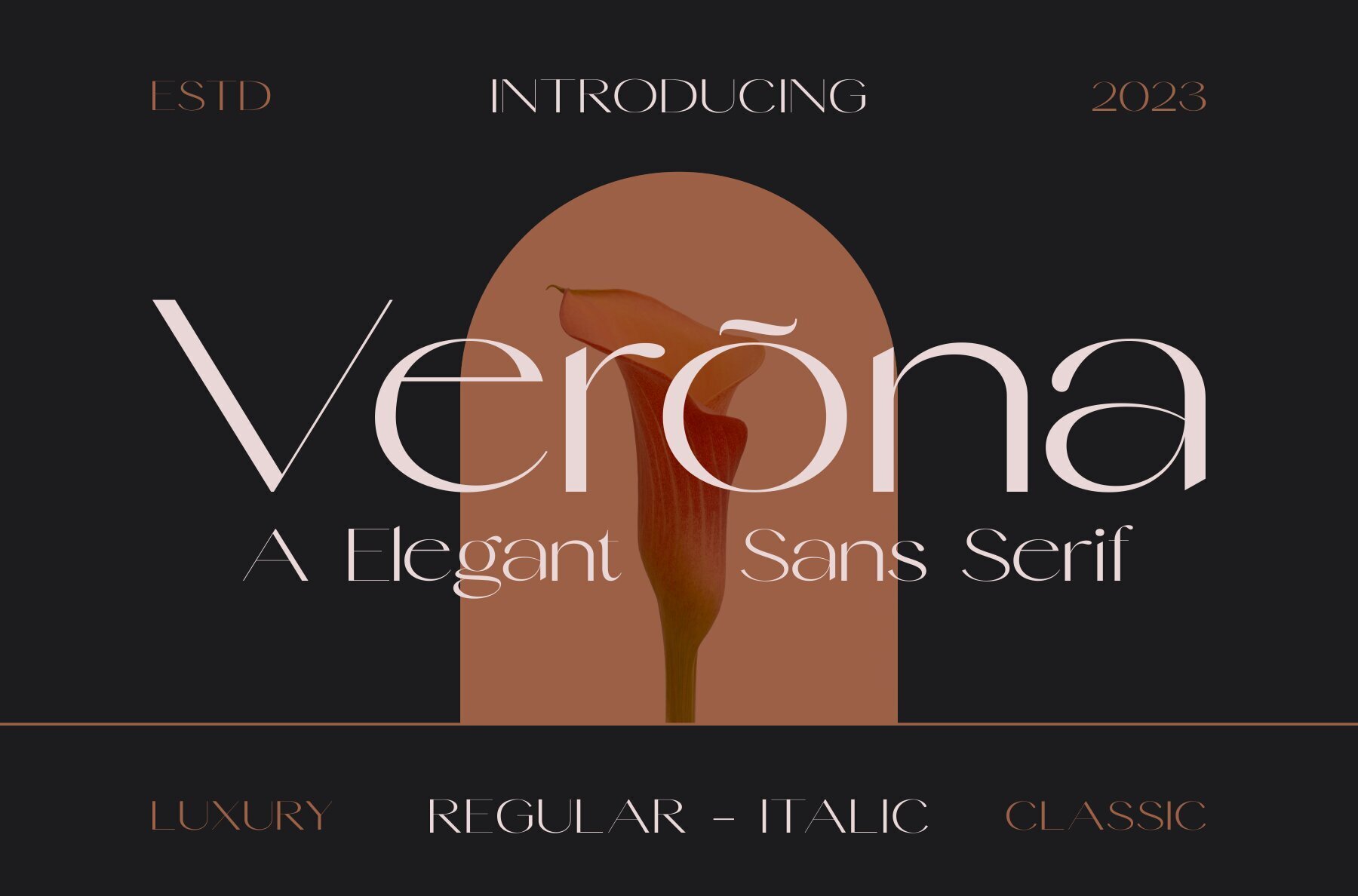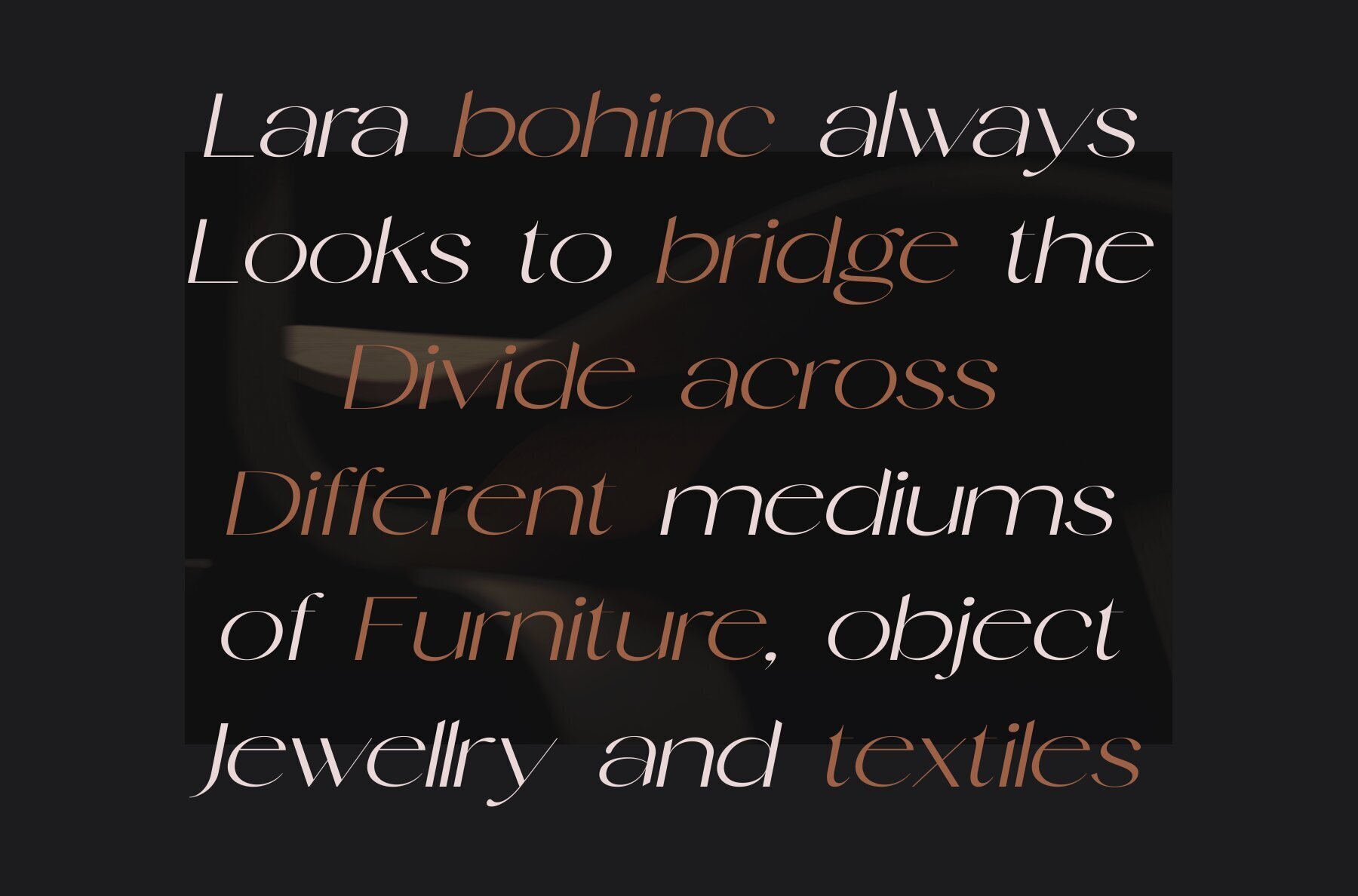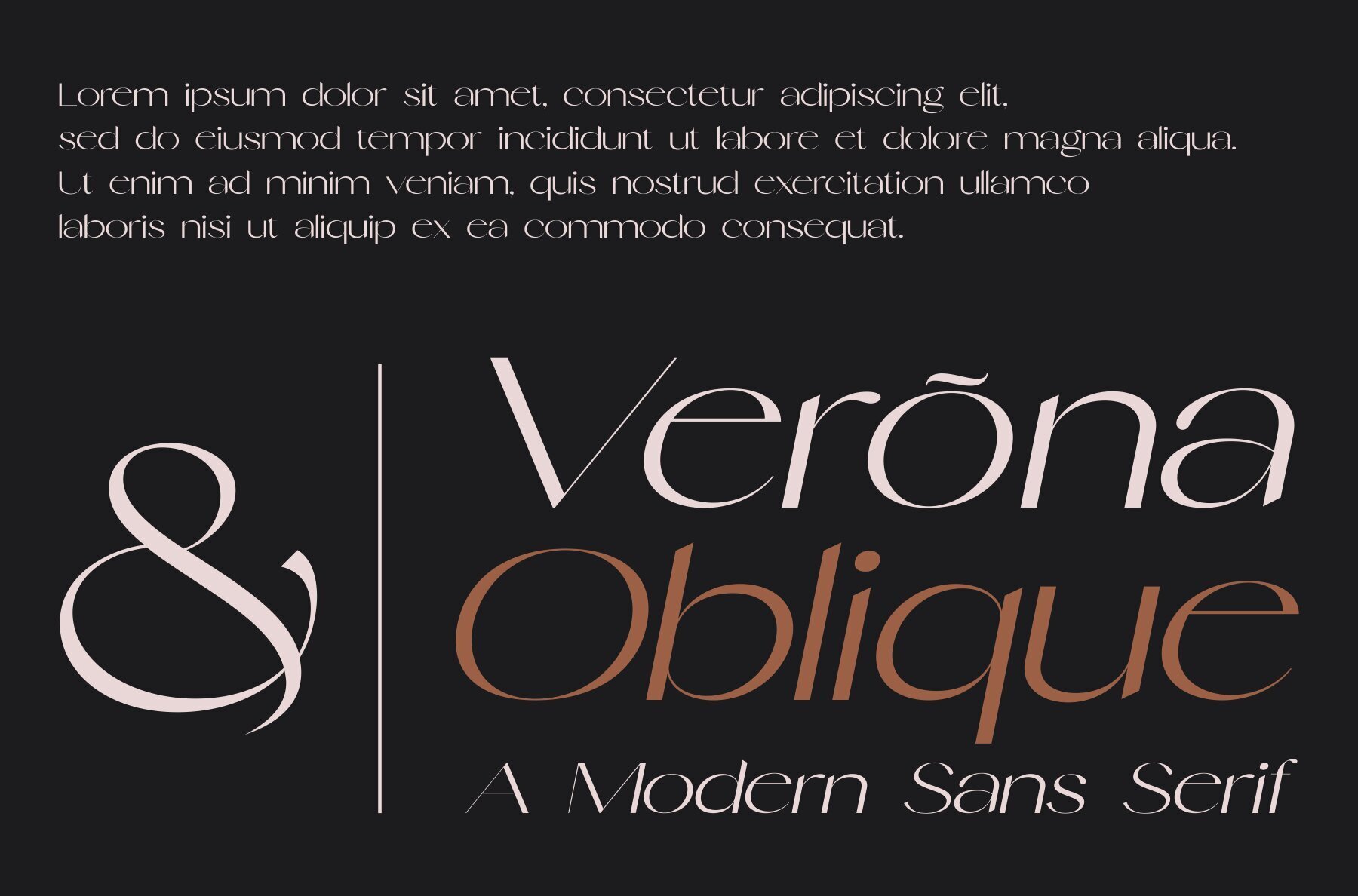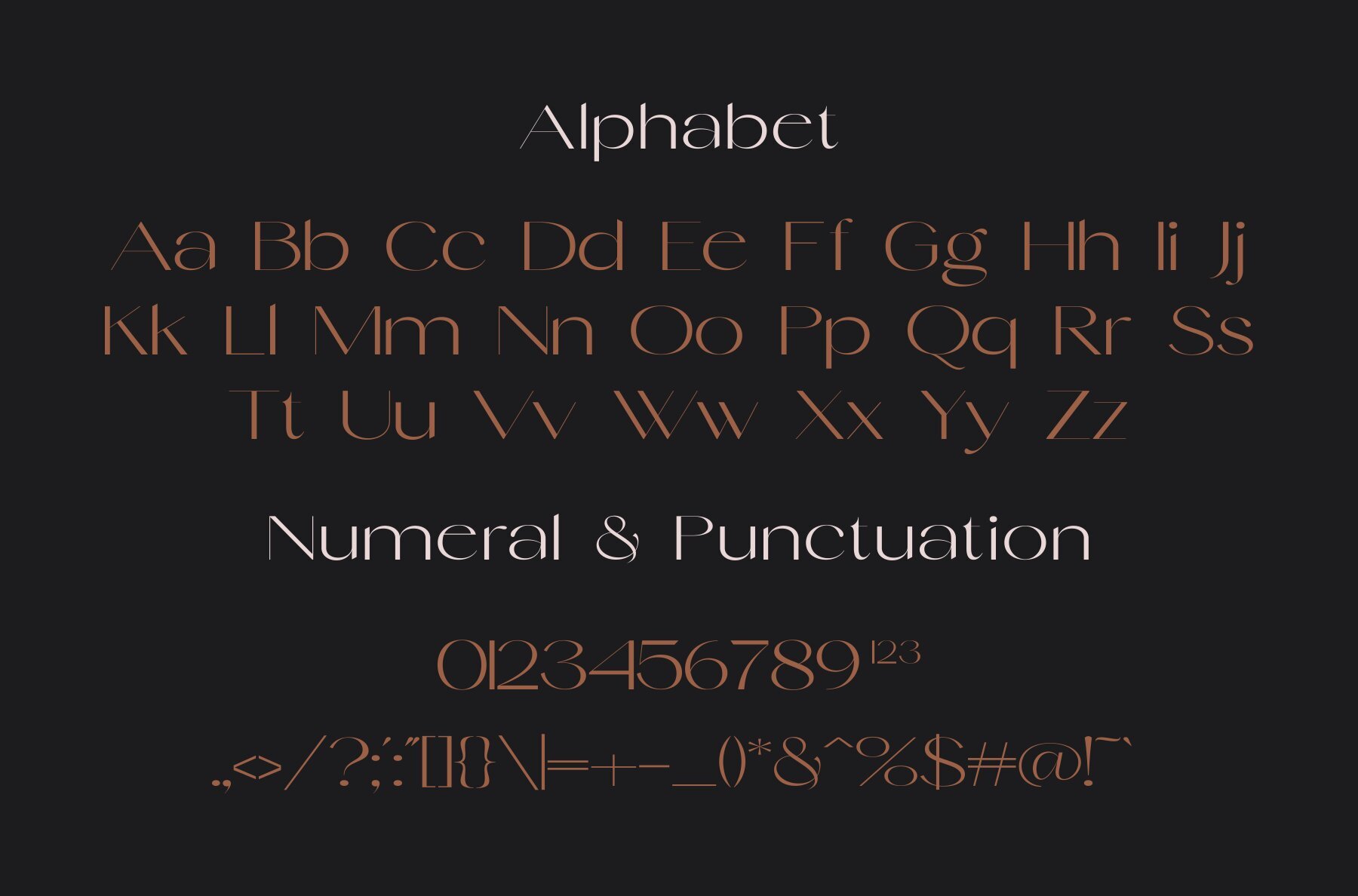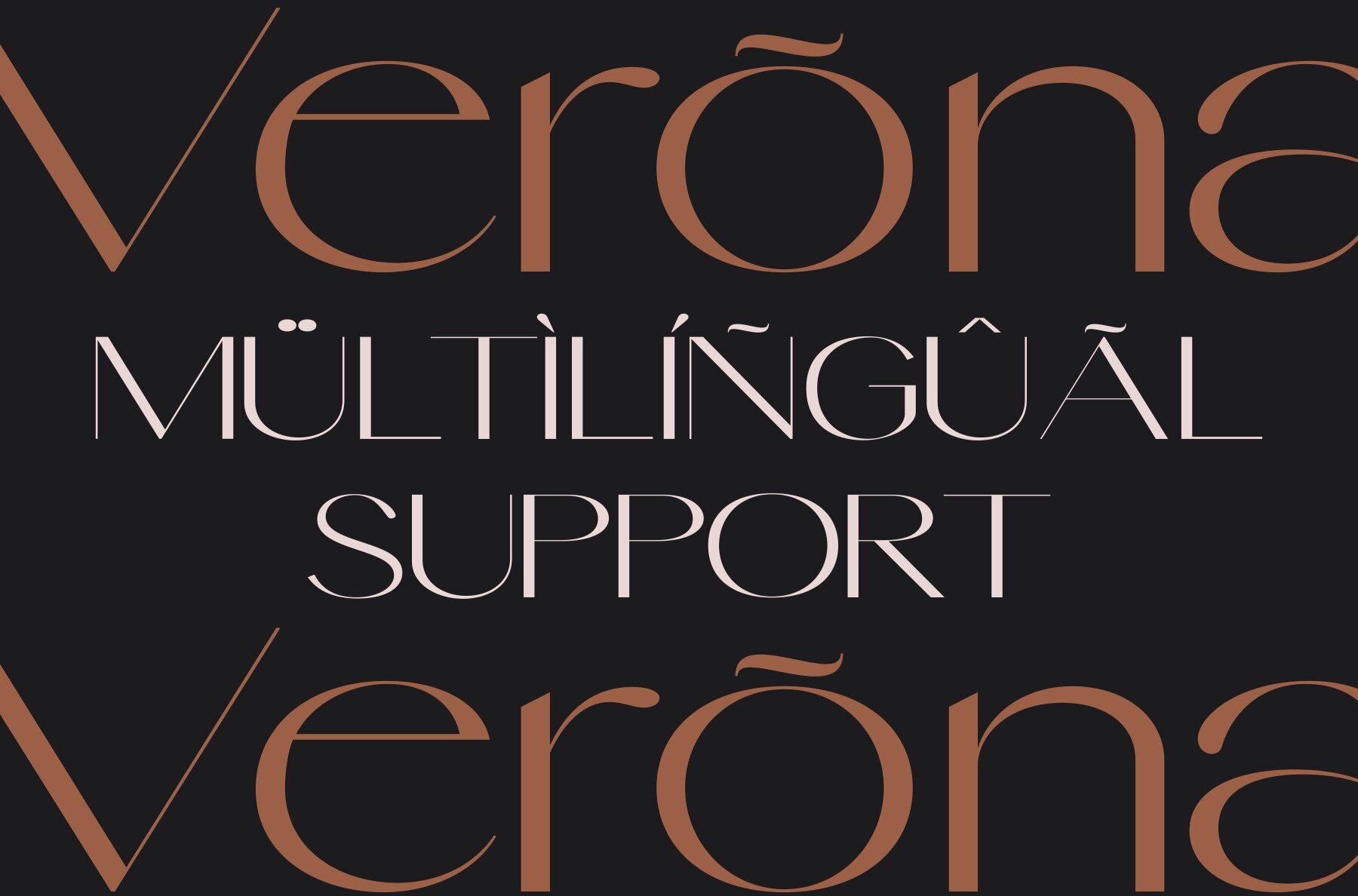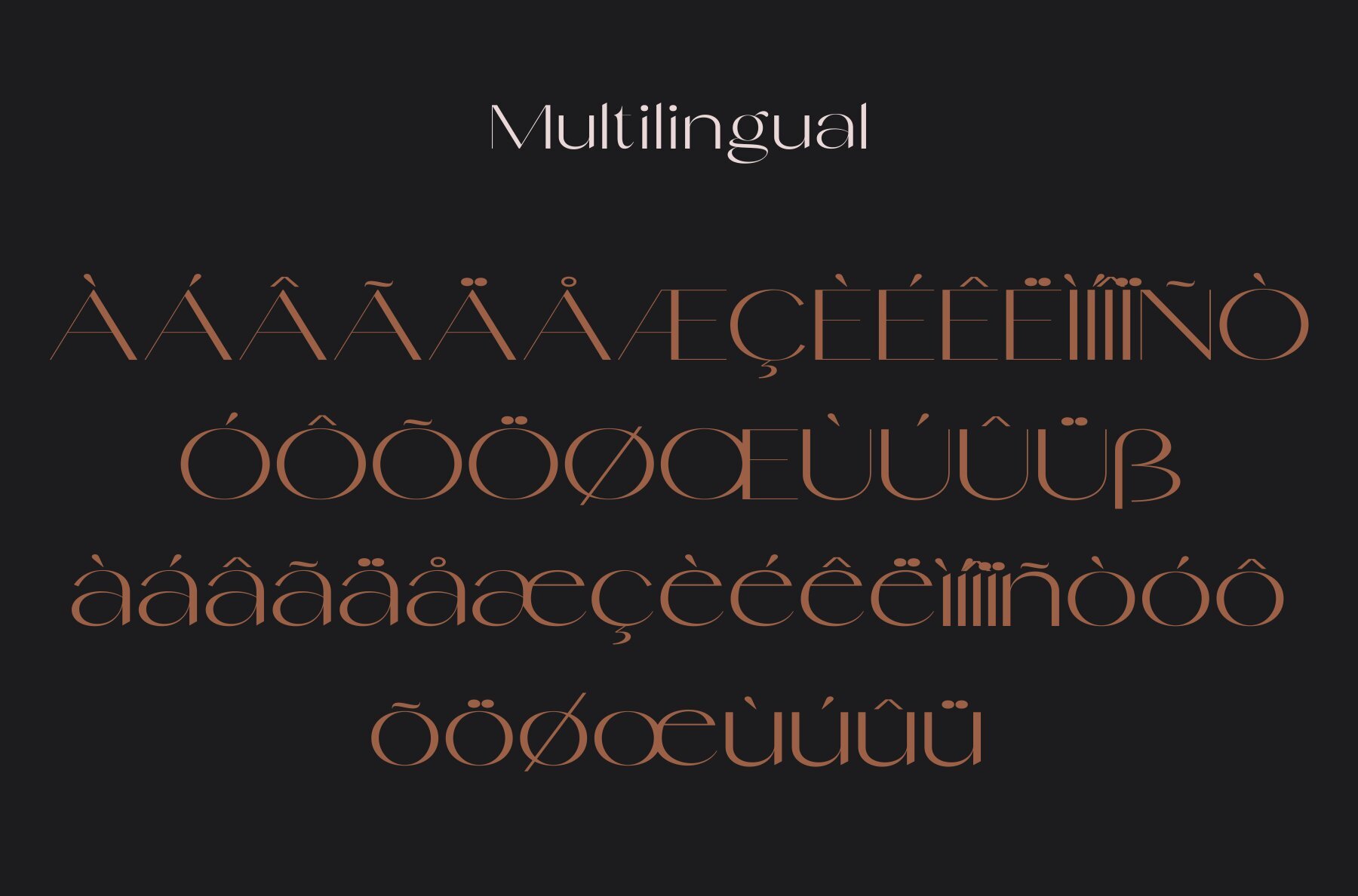
Verona Font
Verona Regular
Verona Oblique
The Verona Font is a bold and authentic display typeface designed to enhance any branding project. Its modern aesthetic is perfect for logos, templates, product packaging, and more, ensuring it stands out in a variety of contexts.Verona: Authentic and Bold Display Font